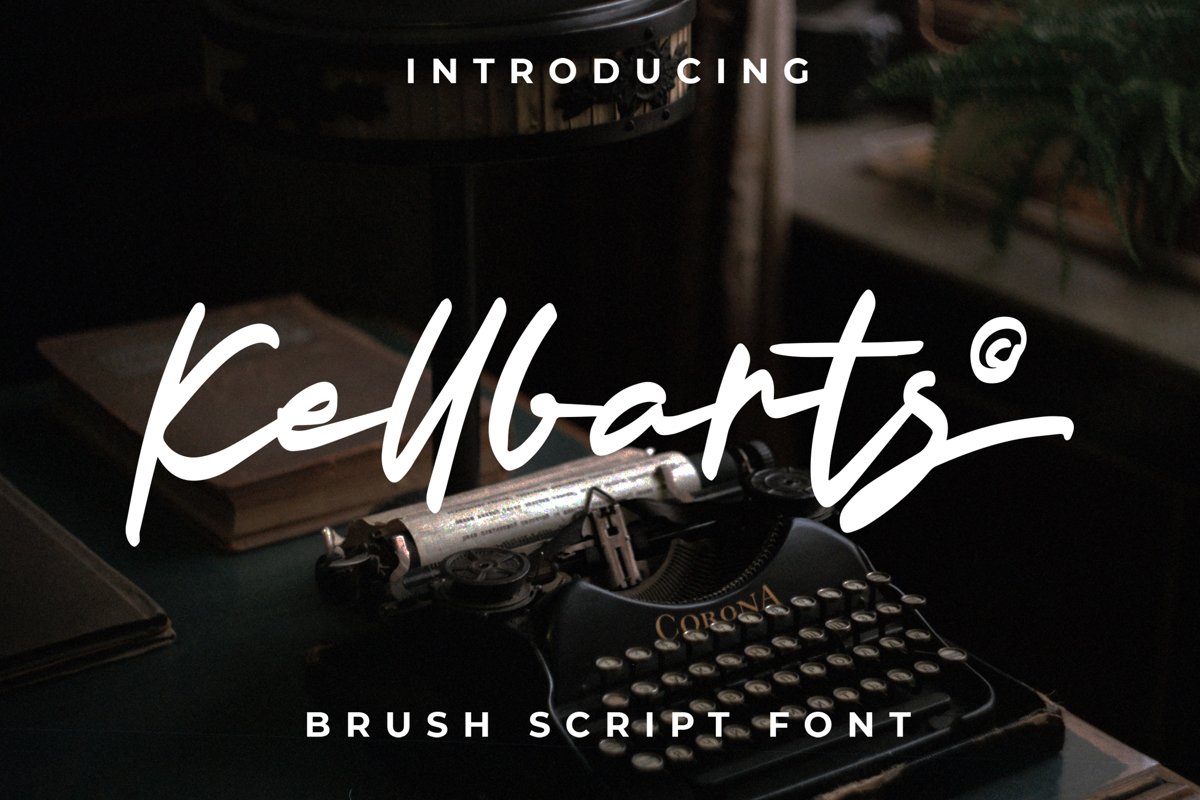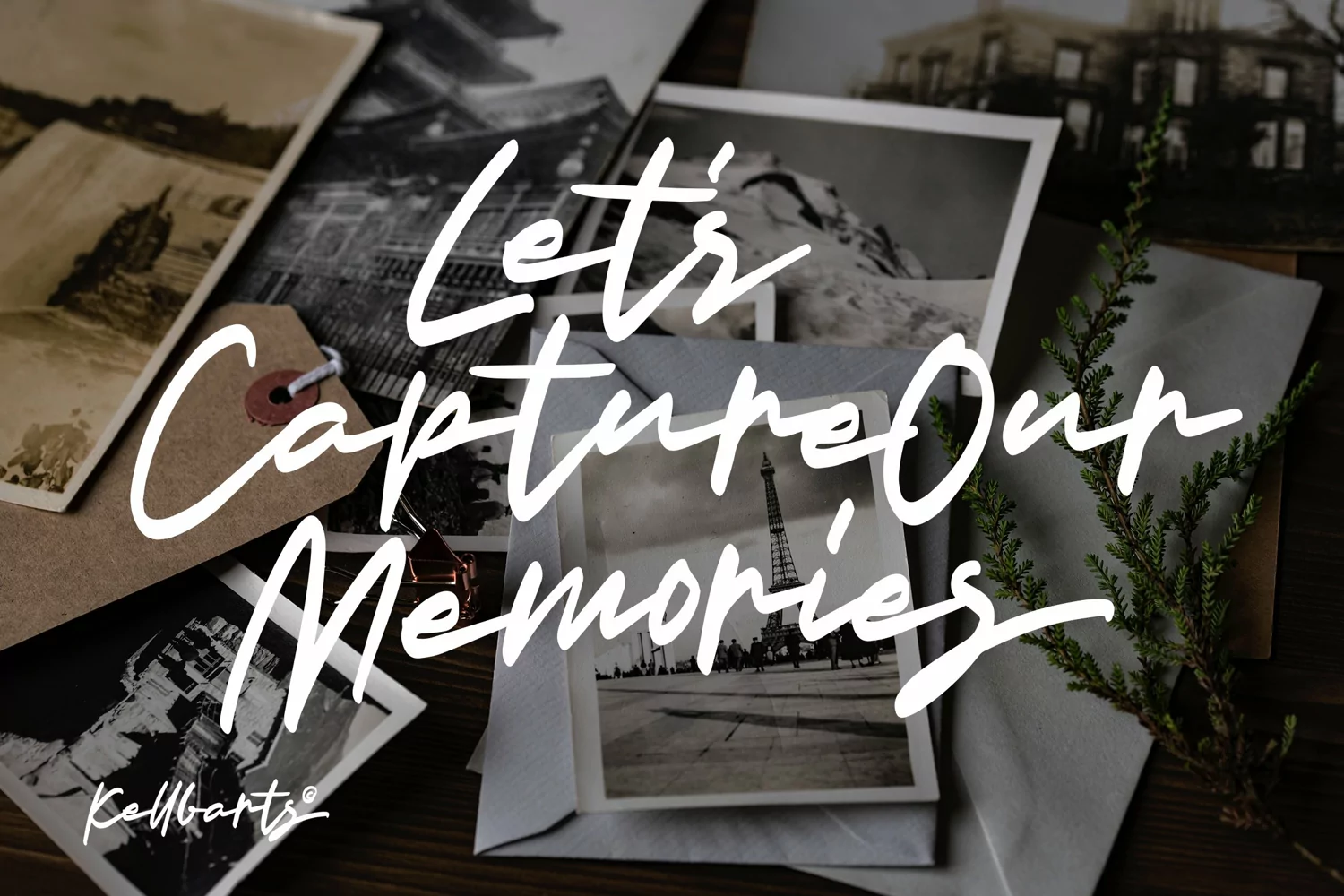
Kellbarts - Script Fonts that contain lowercase, uppercase, symbol, and also support multi language. There’s a lot ligatures in this font. This Font also comes with ligatures, alternates and many more. this font suitable for fashion, branding, catalog and other design what you want.